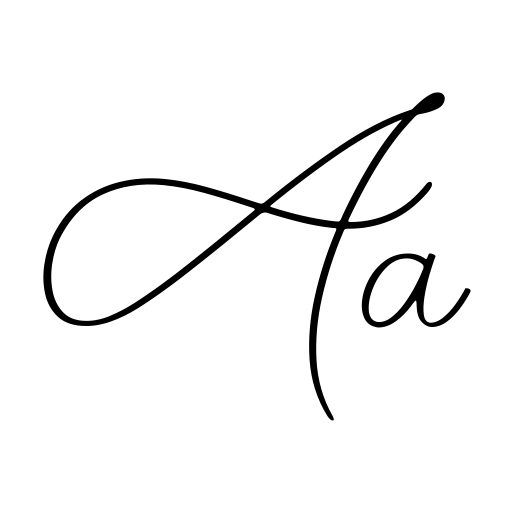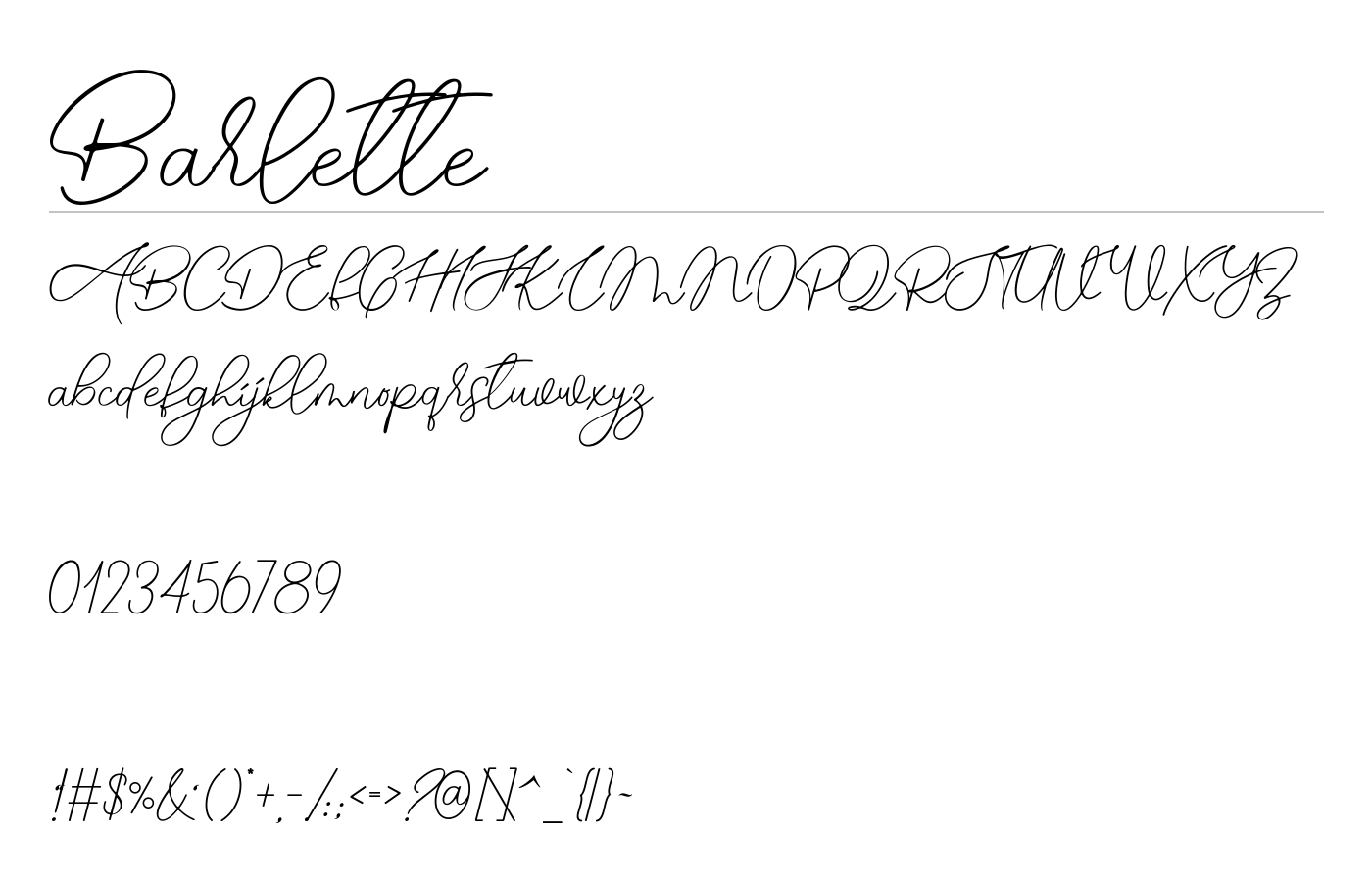
Barlette is an elegant, delicate script font characterized by its thin, flowing strokes and graceful letterforms that evoke a handwritten, calligraphic style. Its slender, airy appearance lends a refined and sophisticated feel, making it ideal for invitations, branding, and other designs that require a personal, stylish touch. This font brings a sense of charm and lightness, perfect for fashion, beauty, and luxury projects where elegance and subtlety are key.
Barlette Font